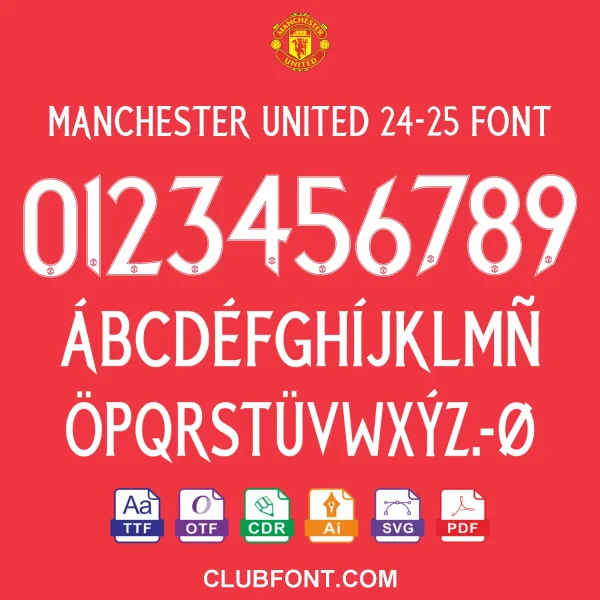
Officially inspired Manchester United 2024-25 kit font​ package for DIY jersey makers and fan designers. Delivered as TTF, OTF, CDR and PDF vector files​ — ready for Adobe Illustrator, CorelDRAW, cutting plotters and vinyl work.
✅ Uppercase A–Z
✅ Numbers 0–9
Recreate the exact shirt-lettering look of Old Trafford this season. This Manchester United 2024-25 font pack is traced from the official Premier League match-day kit typography and exported in every format a jersey customiser actually needs.
Key Features
•  Full uppercase A–Z (Player Names)
•  Full numerals 0–9 (Jersey Numbers)